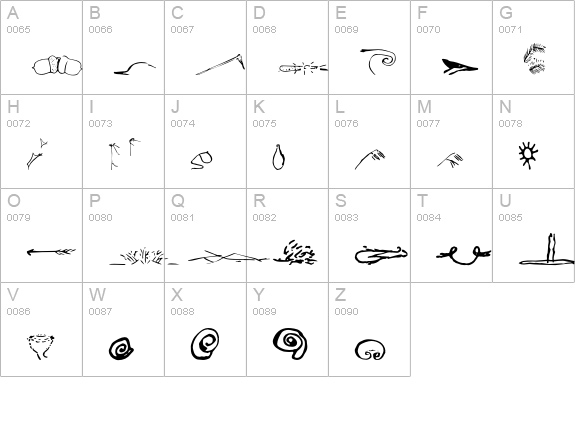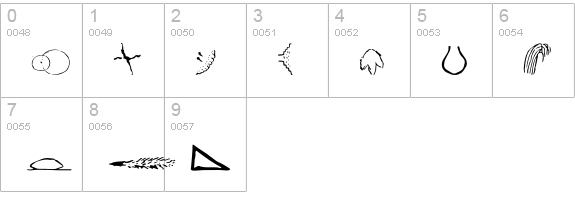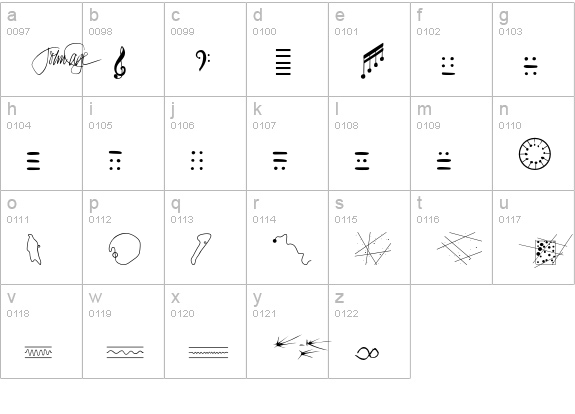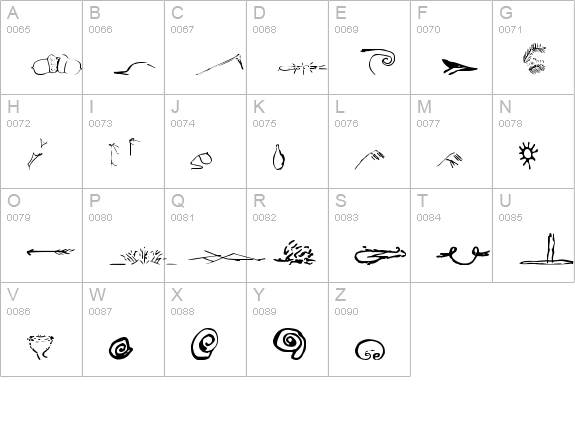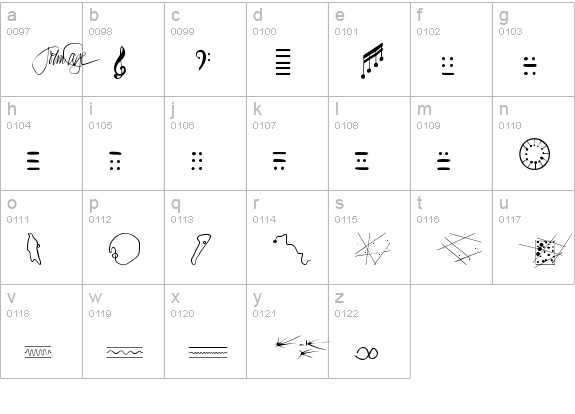
P22CageExtras Font Details
P22CageExtras font is a remarkable typeface that brings a unique and captivating touch to any design project. With its avant-garde and experimental style, this font is perfect for those seeking to push boundaries and break free from conventional typography. The P22CageExtras font offers a wide range of extras and embellishments that add a distinct artistic flair to your designs. Whether you're looking for ornate flourishes, intricate patterns, or decorative elements, this font has it all. It provides an extensive collection of characters, allowing you to create stunning compositions that stand out from the crowd. One of the most remarkable aspects of P22CageExtras font is that it is freely available to download at FontsMarket.com. This means that designers and creatives can easily access this extraordinary font without any cost, making it an incredible resource for all types of projects. Whether you're working on personal or commercial endeavors, this font offers a wealth of possibilities without any financial barriers. Embrace the freedom that P22CageExtras font offers and let your imagination run wild. With its captivating and unconventional style, this font allows you to break free from the norm and create designs that are truly one-of-a-kind. Make a bold statement, captivate your audience, and elevate your projects with the remarkable P22CageExtras font. Download it for free at FontsMarket.com and unleash your creativity today.